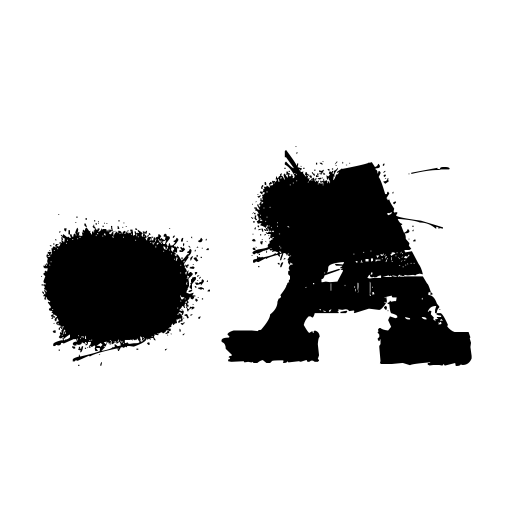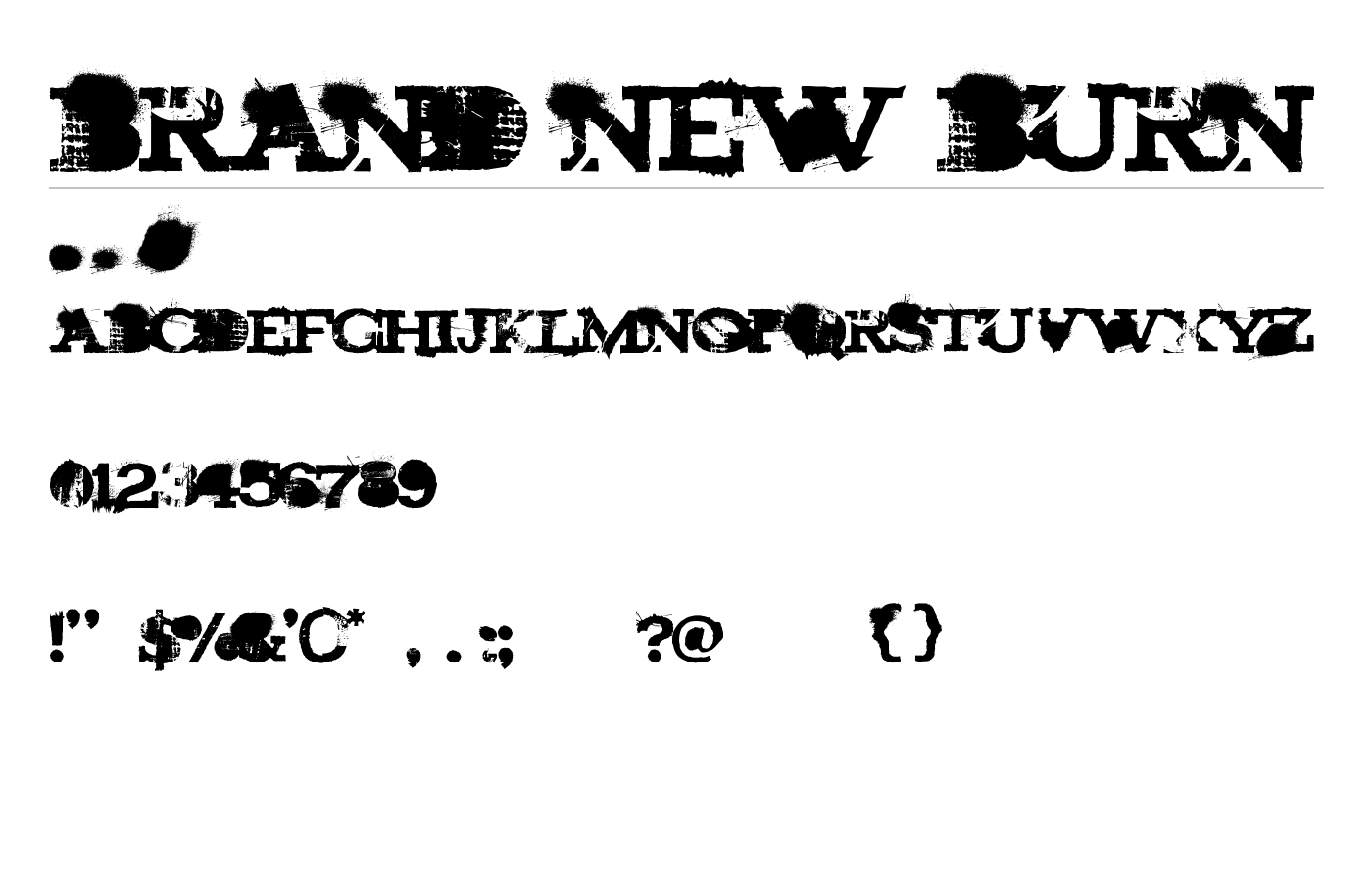
Brand New Burn is a bold, distressed slab serif font with a strong, grungy texture that gives it a rugged and rebellious feel. Its heavy weight combined with rough, worn edges makes it ideal for eye-catching headlines, posters, or branding that aims to convey toughness and raw energy. This font works best in designs seeking an edgy, urban vibe with a vintage touch.
brand new burn Font
About brand new burn Font